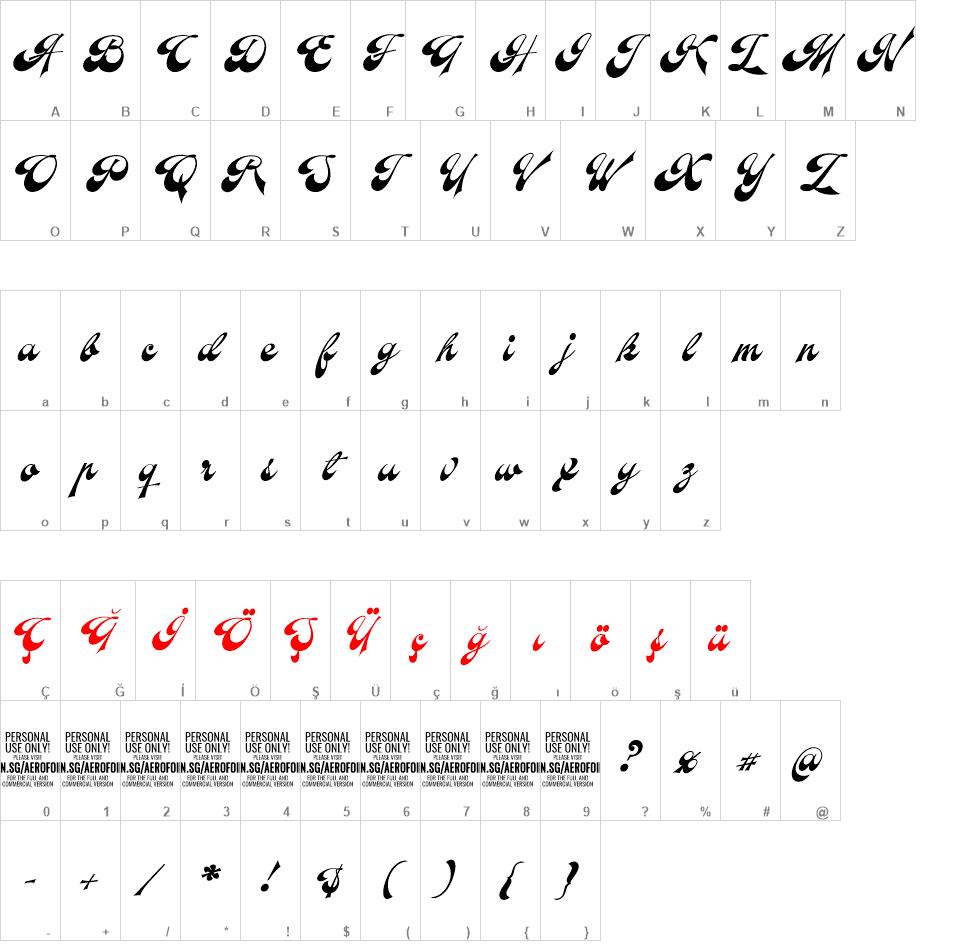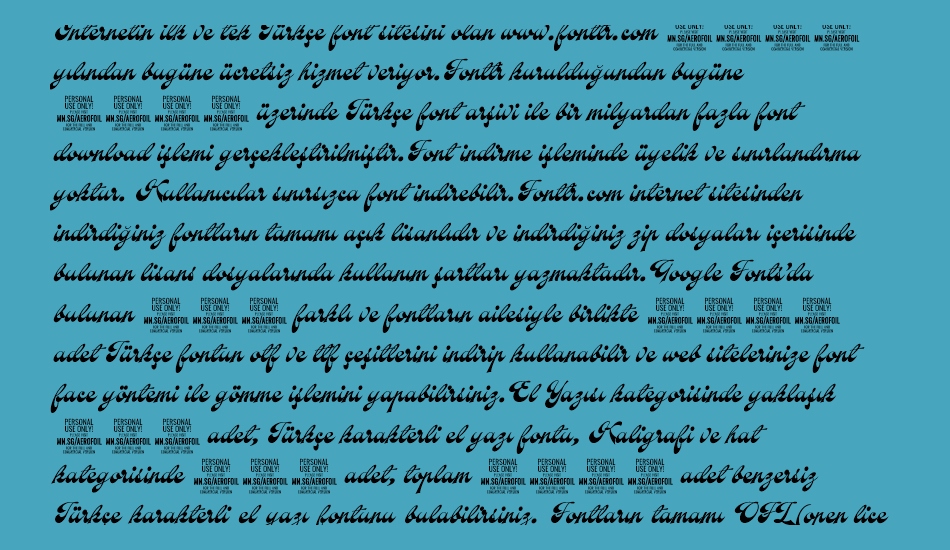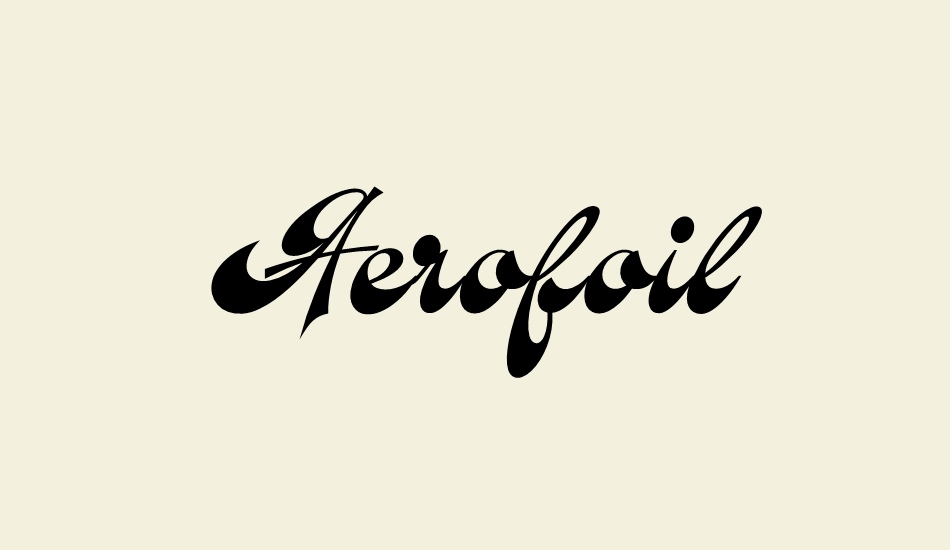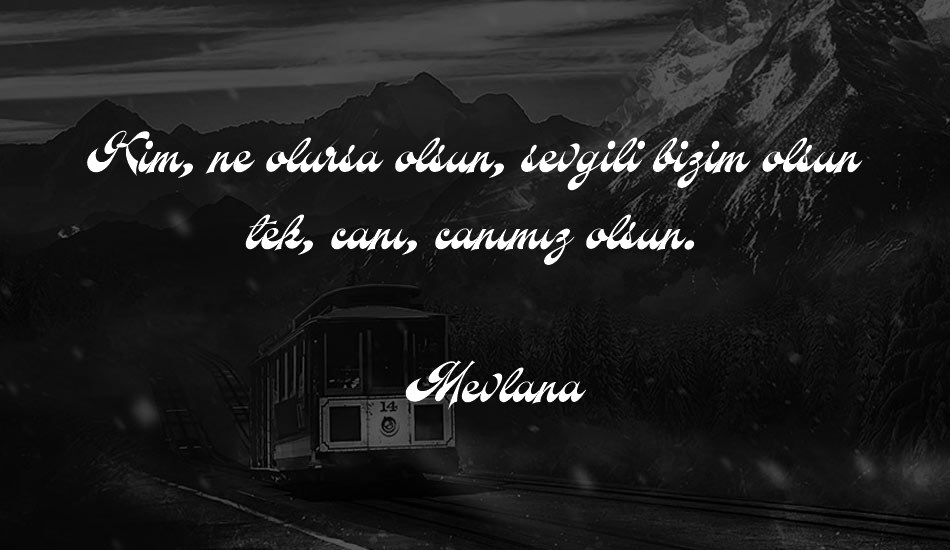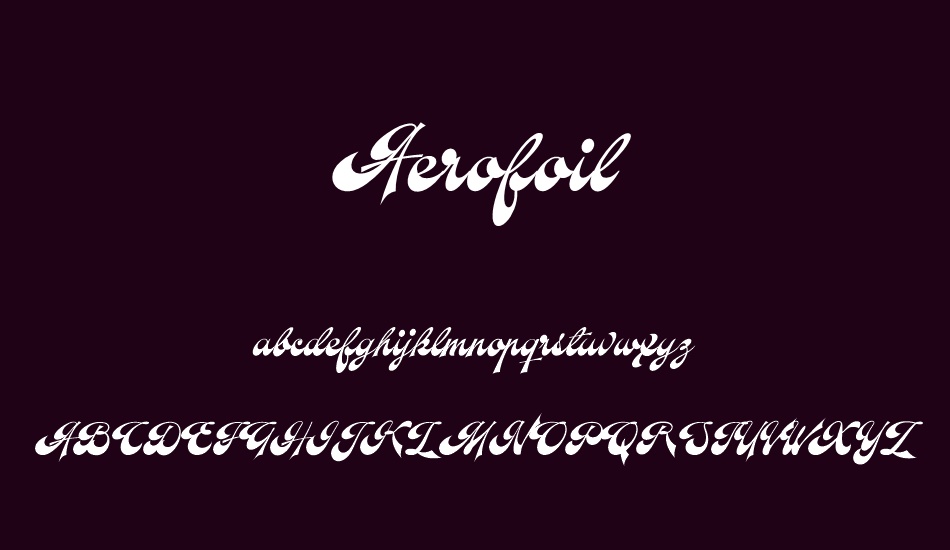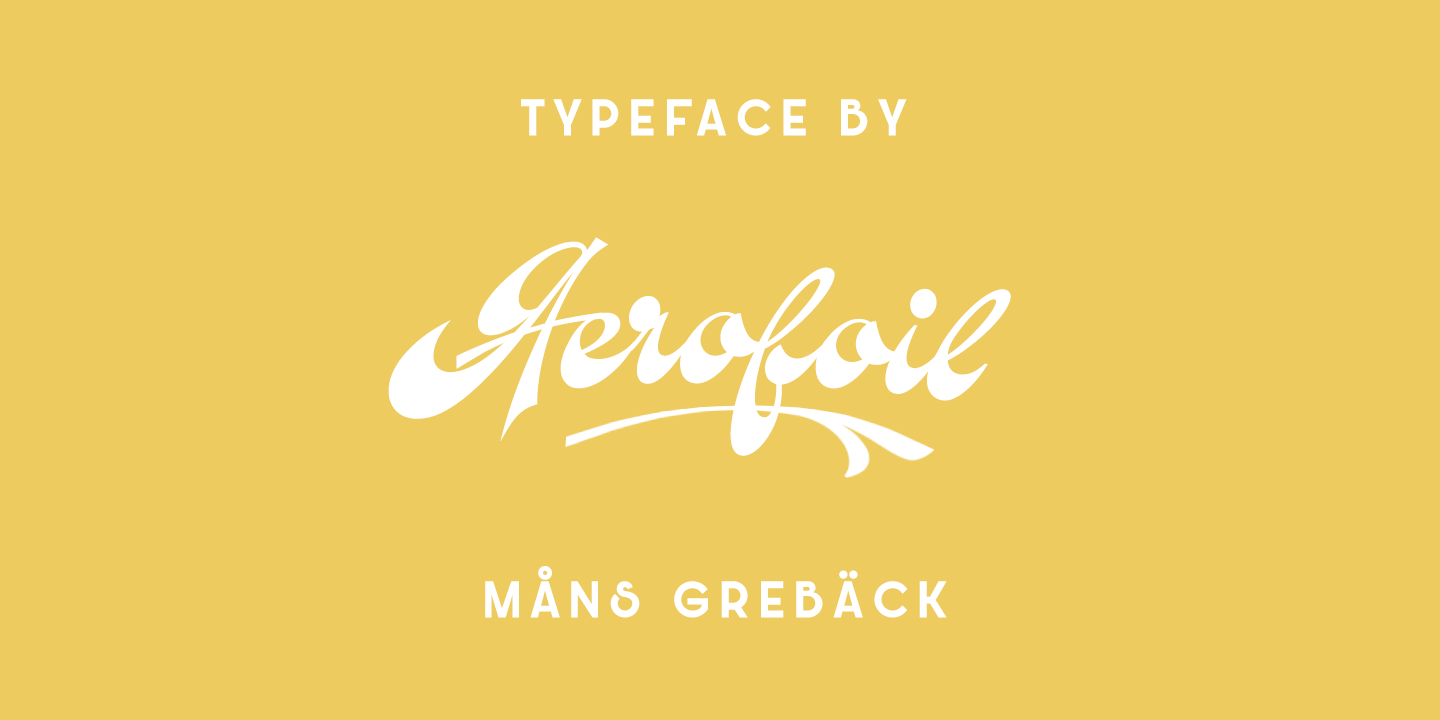
Aerofoil font
Aerofoil is a vintage script typeface.
This high quality font gives any project a genuine spirit.
Designed and created by M?ns Greb?ck, Aerofoil has a timeless and classic style, while still being original.
It has several alterate characters, ligatures and OpenType functions, and the font also supports hundreds of languages.
Use _ for an underline.
Example: Aer_ofoil